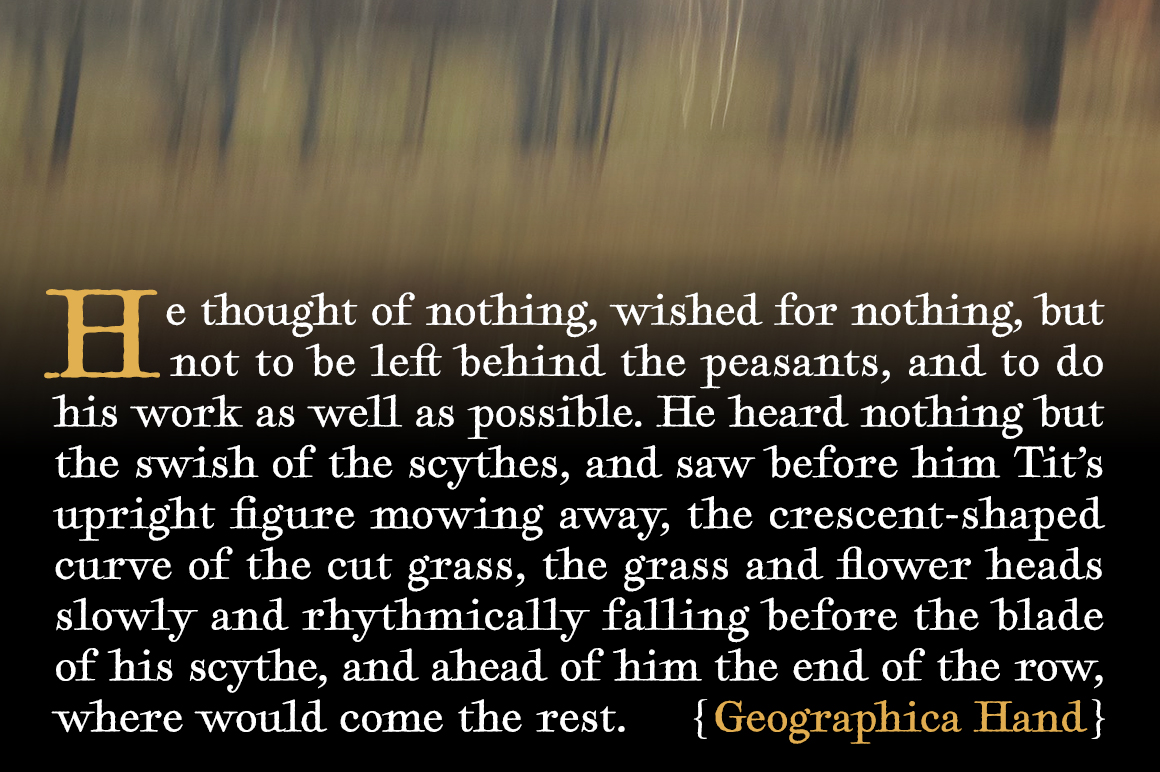
Modeling antique fonts after historical materials gives you intimate familiarity with those old letters and journals and maps. The maps that inspired our Geographica serif family proved more fruitful than I first expected: they begat a pair of spinoffs of sorts, each replicating a particular 18th-century handwritten style. This is one of these. (Geographica Script is the other.) Geographica Hand mimics the careful hand-lettered serif text on a series of British maps printed in the 1700s by Emanuel Bowen, Thomas Jefferys, and othersseveral of them representing Colonial America and Canada. The letterforms have long serifs, irregular lines, and an agreeably organic feel. Geographica Hand comes with a series of hand-done map ornamentschurches, windmills, boats, trees, and such.* Best perhaps for display situations, but plenty legible in text blocks, as well. $39 | Order
*OpenType features include true small caps, contextual and discretionary ligatures, lining and old-style figures, cartographic ornaments, and full Latin support900 glyphs in all. |